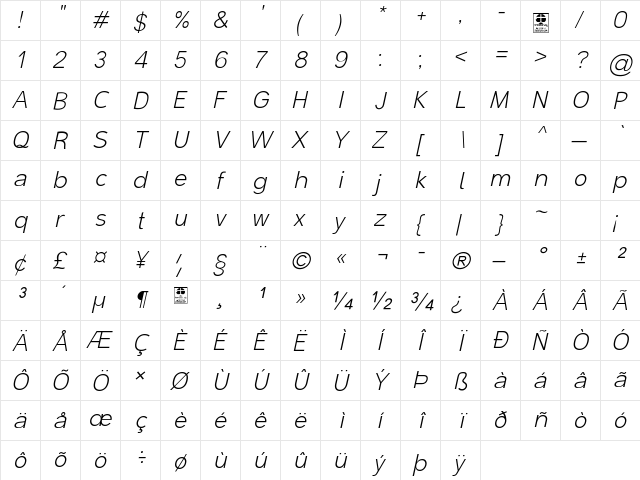
Malter Sans Light Italic Demo Regular
Design Context for Malter Sans Light Italic Demo Typeface
Malter Sans Light Italic Demo is a composed and adaptable typeface that performs quietly and consistently across a wide range of design contexts. Its italic angle brings a sense of urgency and motion to the letterforms. Its slender proportions lend an understated elegance to any composition.
Pro Tip: Use Malter Sans Light Italic Demo for emphasis, pull quotes, and subheadings where its slanted energy can add rhythm to the layout.